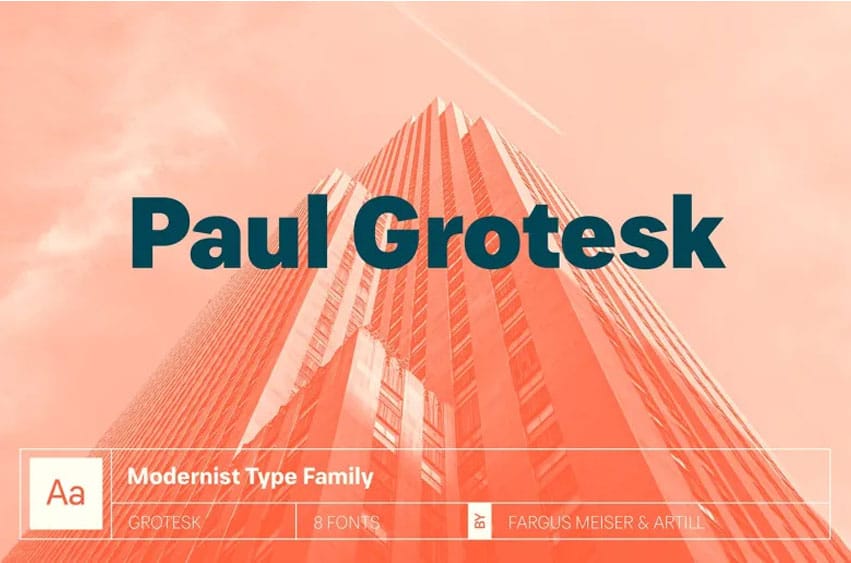
Paul Grotesk Font Sans Serif Font Family is an exquisite minimal grotesque typeface designed and published with Fargus Meiser and Lukas Bischoff, available in 8 fashionable weights (3 of which can be tested free-of-charge. This design was powered by opentype features in mind).
Each weight features extended support for multiple languages as well as arrows, fractions and special numbers – perfect for editorial, graphic design corporate and other display usages! Also check out the webfont feature for an interactive interface!